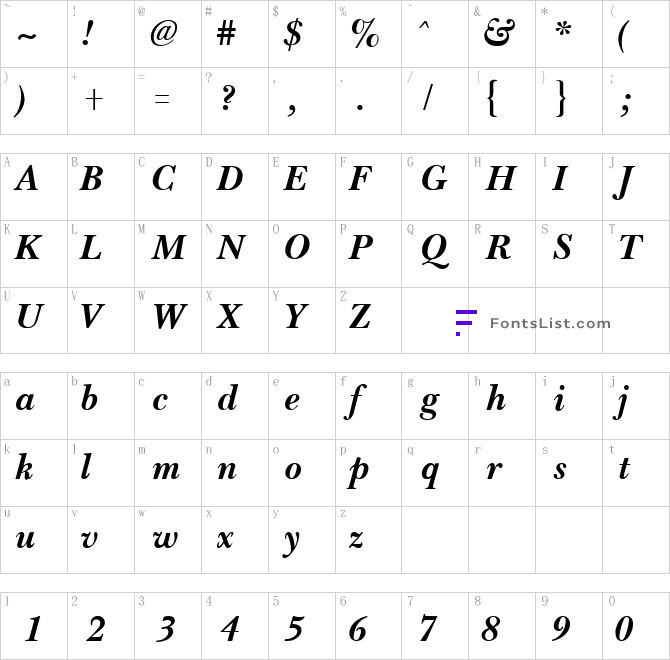
- Font Name:Basset
- Subfamily:Gras Italique
- Subfamily:Weatherly Systems, Inc. Basset Bold Italic
- Full Name:Basset Gras Italique
Basset-Bold-Italic.ttf is a very beautiful artistic font, Basset-Bold-Italic.ttf is widely used in the design and printing of various books and pictures,Basset-Bold-Italic.ttf has a strong visual impact,Basset-Bold-Italic.ttf is a commonly used font in newspapers, magazines and books, and is used in posters, e-commerce Poster design, store design, logo design, font design and other fields.Basset-Bold-Italic.